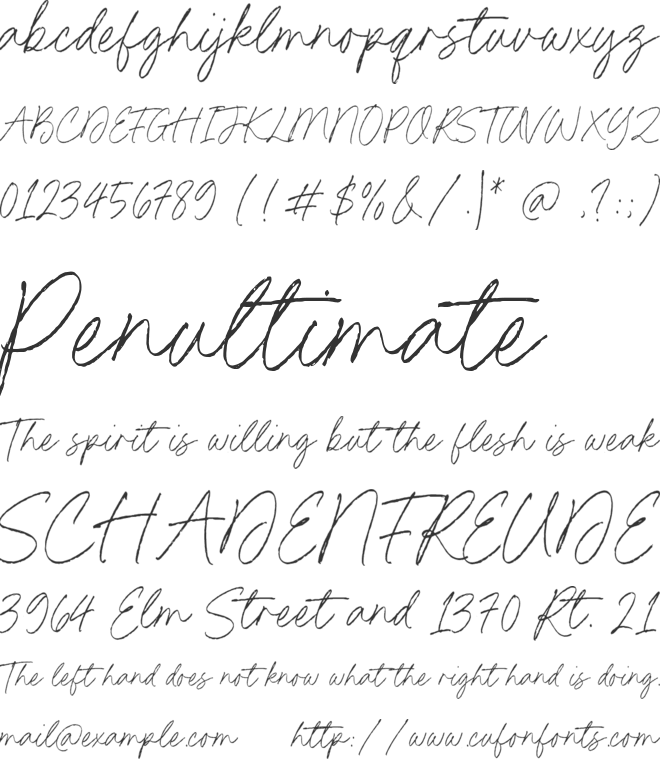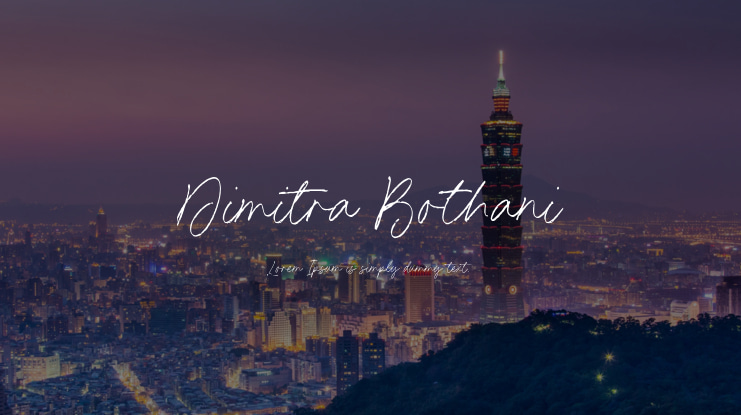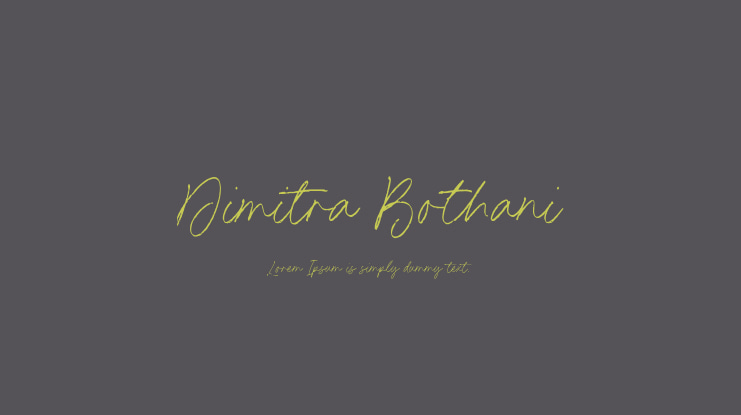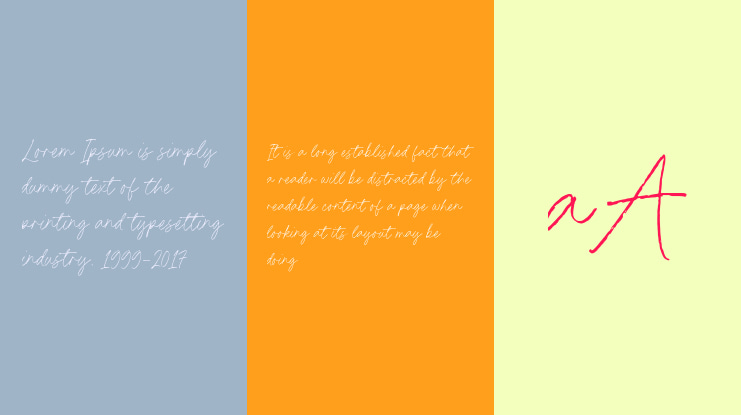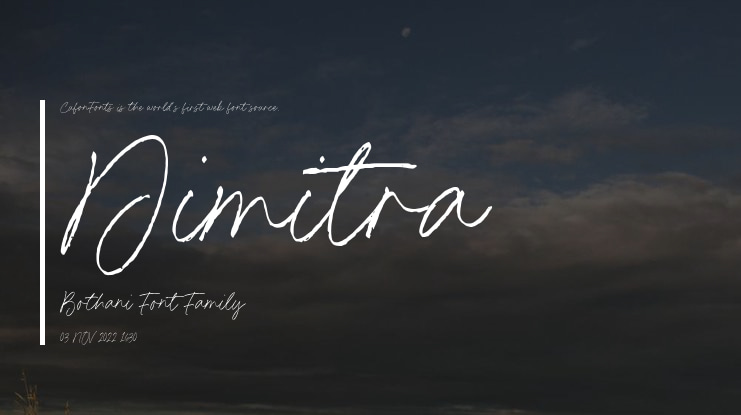
Dimitra Bothani is a rough handwritten script font that offers a unique and edgy touch to your design projects. Characterized by its rugged and unrefined letterforms, this font emanates a rebellious and artistically free spirit. The uneven edges and textured strokes give the Dimitra Bothani font a gritty and worn-out look, ideal for infusing a hint of urban and street-inspired flair into your creations. Additionally, the font includes stylish ligatures, providing further customization and visual appeal to your text. Whether you seek a grungy and unconventional aesthetic or a modern and artistic vibe, the Dimitra Bothani font provides versatility and personality. Embrace the rebellious vibe of the Dimitra Bothani rough handwritten script font and let your creativity flow with its distinct and unapologetic style.
- Stylish Ligature
Dimitra Bothani Font also supports multilingual characters.
- Full set of standard alphabet and punctuation marks